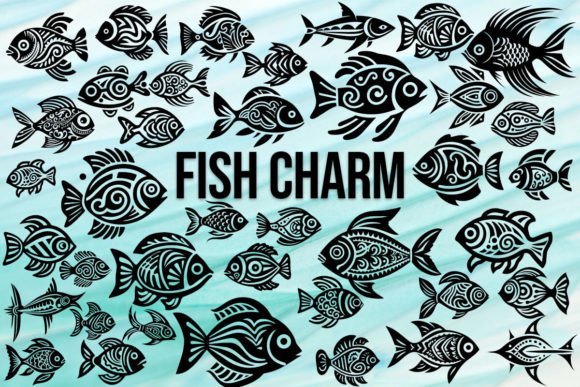
**Fish Charm Font: Dive into a Sea of Inspiration**
Immerse yourself in the enchanting realm of Fish Charm Font, a family of dingbats fonts that will ignite your creativity. This captivating collection of 26 uppercase letters, 26 whimsical lowercase letters, and delightful numbers 0-9 is your gateway to a world of aquatic charm and boundless imagination.
With Fish Charm Font, you hold the power to transform your designs into captivating masterpieces. Dive into the depths of creativity and let your imagination swim free as you explore the endless possibilities of this typographic treasure. Whether you're designing logos, posters, invitations, or any other project that calls for a touch of underwater wonder, Fish Charm Font is your perfect companion.
Designed by MOMAT THIRTYONE, a renowned font designer with a keen eye for detail and a passion for creating fonts that inspire, Fish Charm Font is a true work of art. Each character is meticulously crafted to evoke the essence of the underwater world, from the graceful curves of the fish-shaped letters to the playful numbers that resemble sea creatures.
Unleash your creativity and let Fish Charm Font guide you on an artistic adventure. This font family is perfect for adding a touch of whimsy and wonder to your projects. Whether you're a seasoned designer or just starting out, Fish Charm Font will captivate your imagination and help you create designs that leave a lasting impression.
Don't let your creativity be confined to the ordinary. Embrace the extraordinary with Fish Charm Font and unlock a world of boundless possibilities. Dive into the depths of inspiration today and let your imagination set sail!